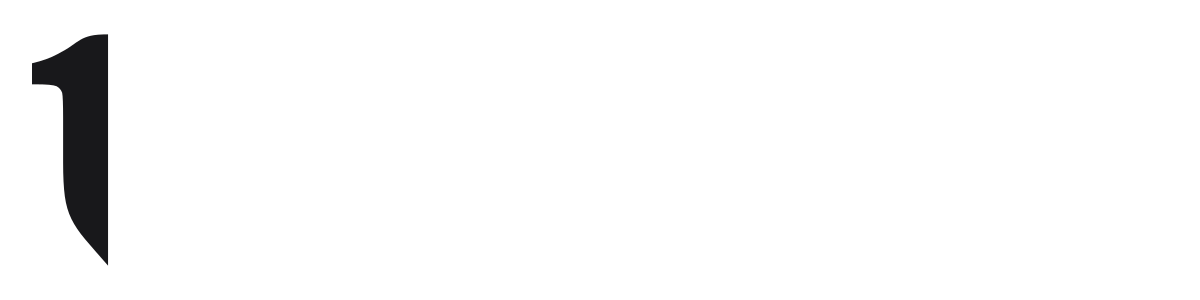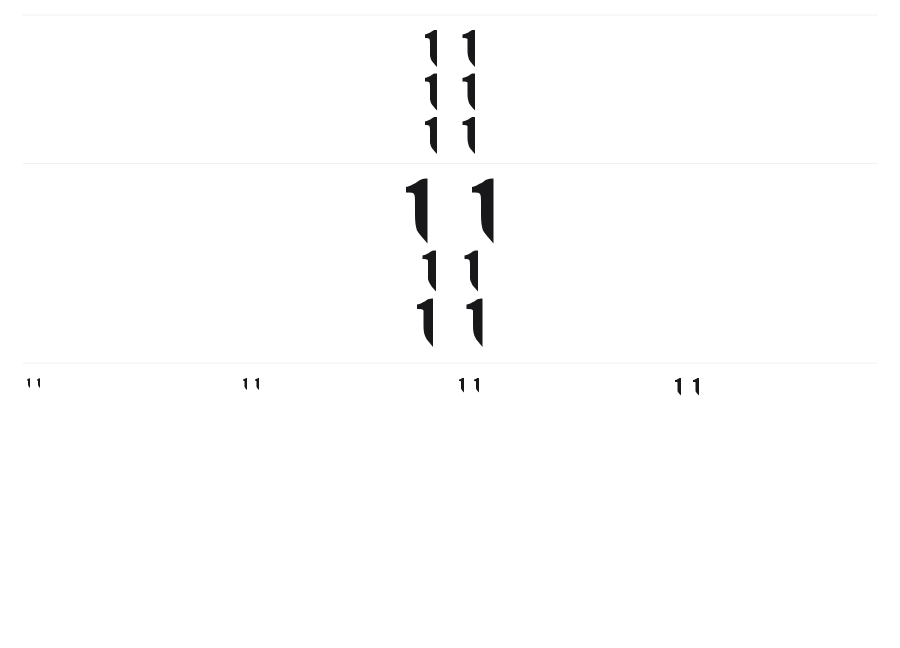
Exorcista
Exorcista is a heavy display serif built around sharp contrasts and angular, blade-like terminals that telegraph dread without resorting to cliché. The high stroke contrast between thick stems and hairline thins gives it a carved, almost ritualistic quality. It commands attention on posters, album covers, and horror titles.